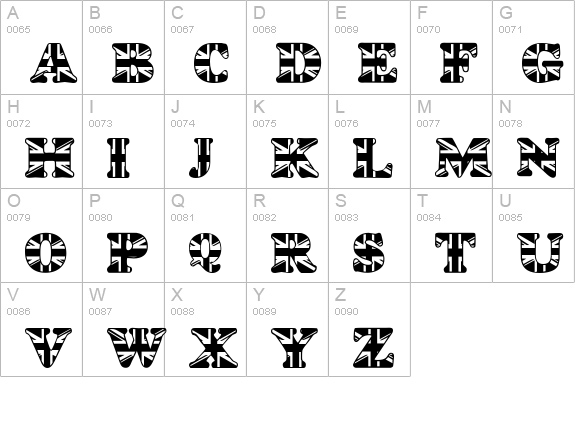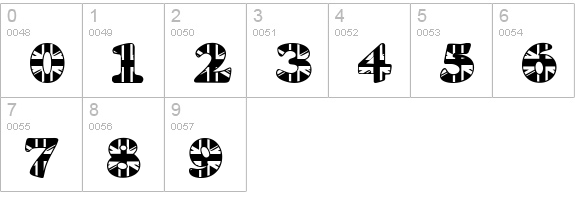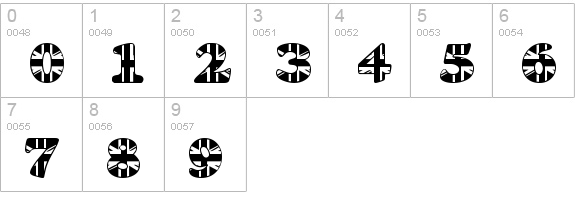
The LMS God Save The Queen font is a stunning display font that exudes elegance and sophistication. With its intricate details and regal aesthetic, this font is perfect for adding a touch of royalty to any design project. The ornate flourishes and unique letterforms make LMS God Save The Queen a standout choice for invitations, posters, and branding materials. What's even better is that this font is available for free download at FontsMarket.com. You can elevate your designs with this exquisite typeface without breaking the bank. Don't miss out on the opportunity to enhance your projects with the majestic beauty of LMS God Save The Queen font. Download it today and let your creativity reign supreme!